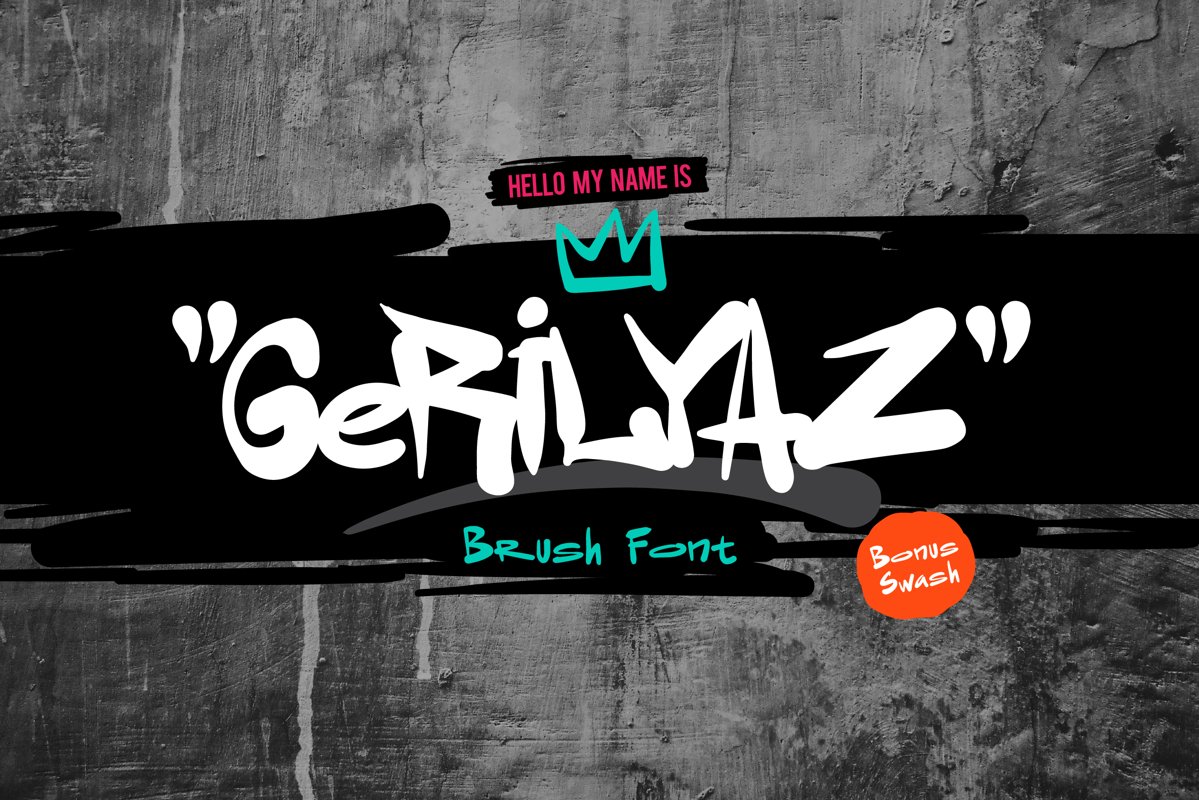
Gerilyaz - Brush Font
Gerilyaz is a great font for the art and energetic, street theme, logotype, display, art exhibition, logo, editorial, fashion, typography, poster, printed, invitations, cards, product packaging, headers, letterhead, apparel design, label, It's also could be good for formal text and etc.
Gerilyaz comes with uppercase, lowercase alternate, numerals, punctuation, swash and swash alternate.